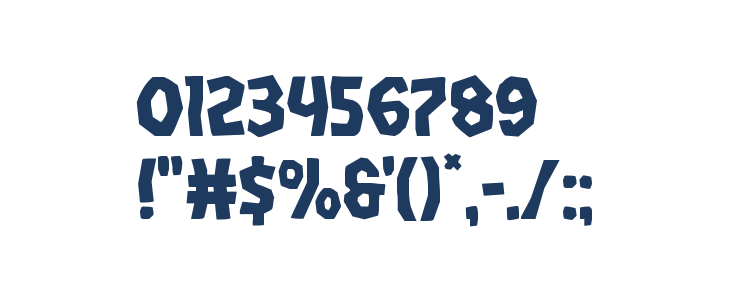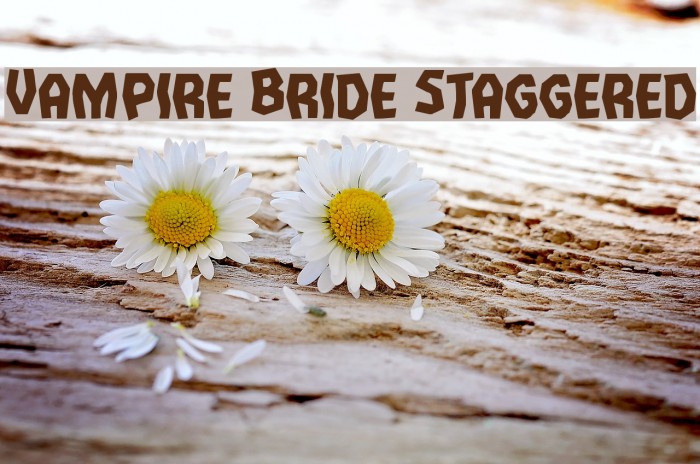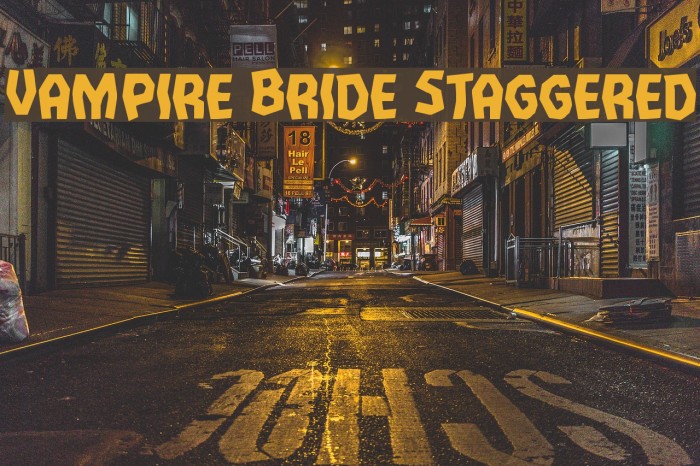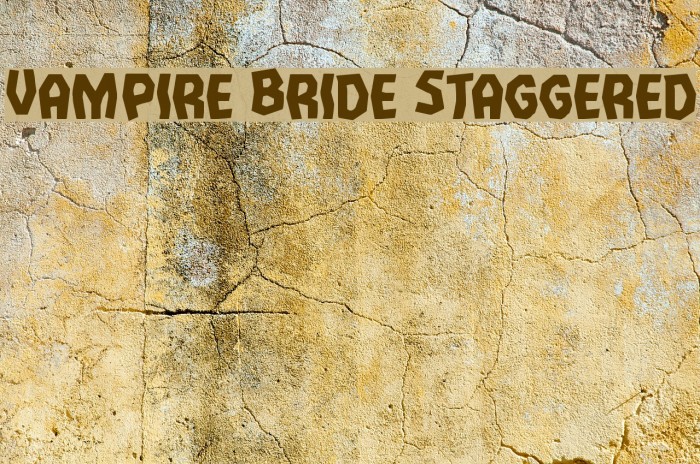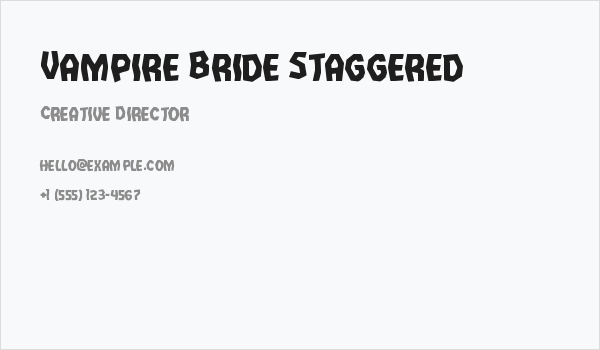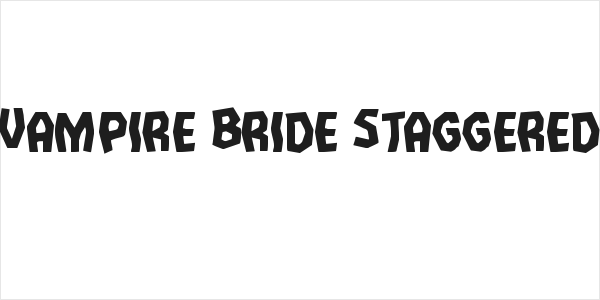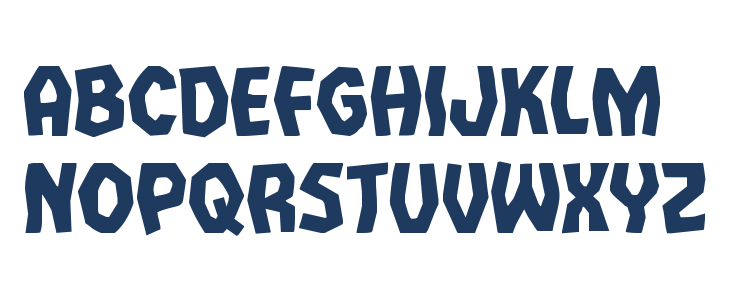
Vampire Bride Staggered Font
Vampire Bride Staggered Description
This font features a bold and jagged design, reminiscent of classic horror themes. The characters are irregular and angular, giving them a hand-carved appearance that evokes a sense of mystery and intrigue. The uppercase and lowercase letters maintain a consistent style, with sharp edges and uneven lines that create a dynamic and unsettling visual effect. Numbers and special characters follow the same aesthetic, ensuring a cohesive look across all text elements. This font is perfect for projects that require a dramatic and eerie touch, such as Halloween-themed designs or horror movie posters.
| Proposed Projects | Ideal for Halloween designs, horror movie posters, spooky event invitations, and themed merchandise. |